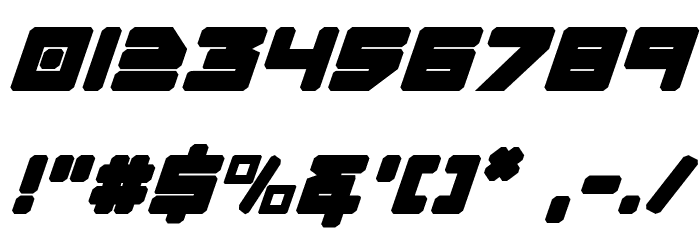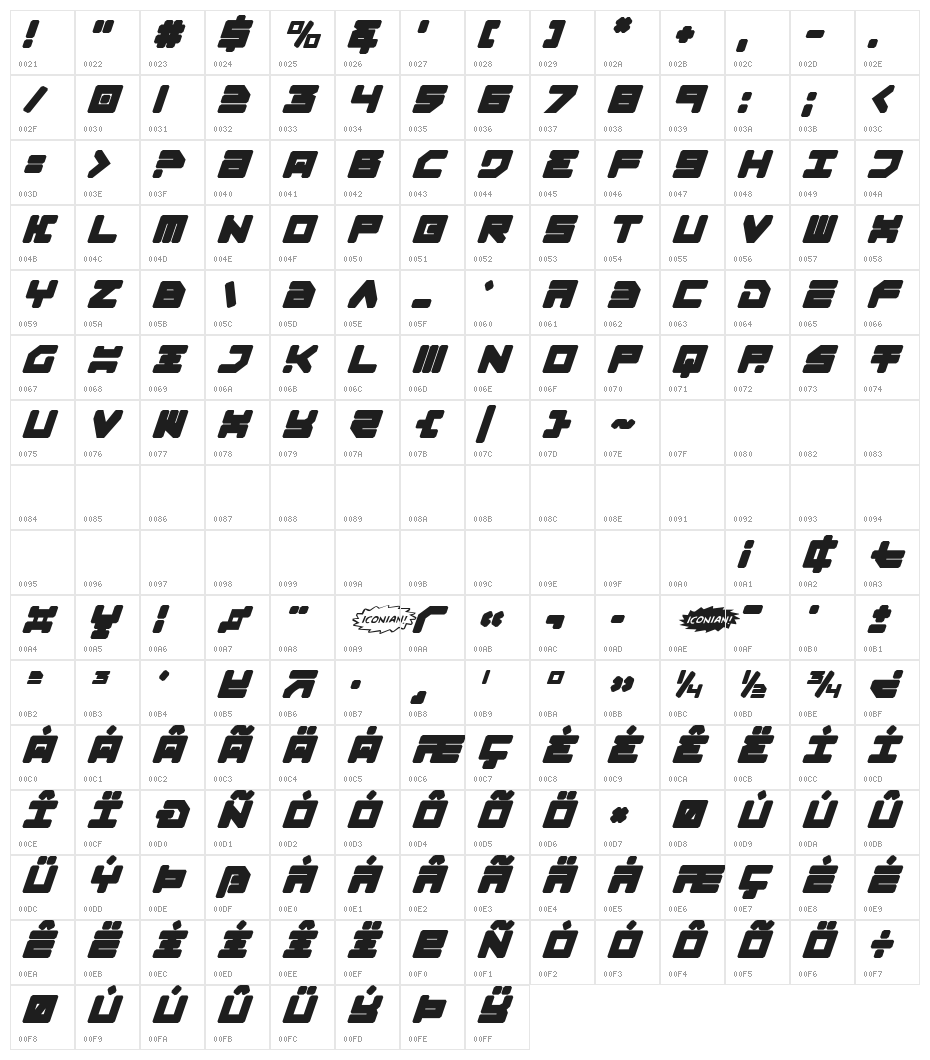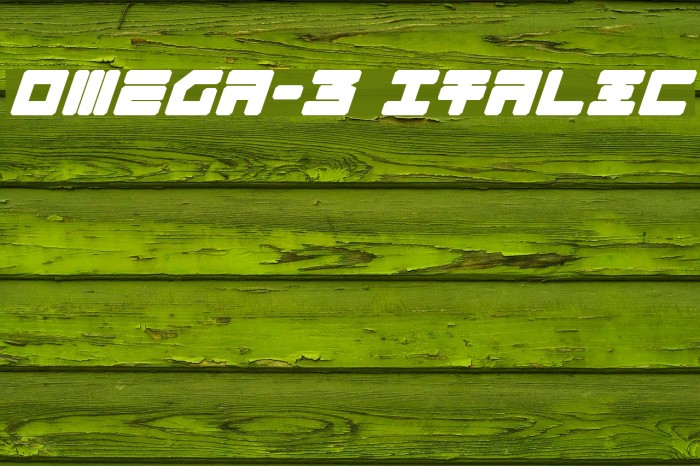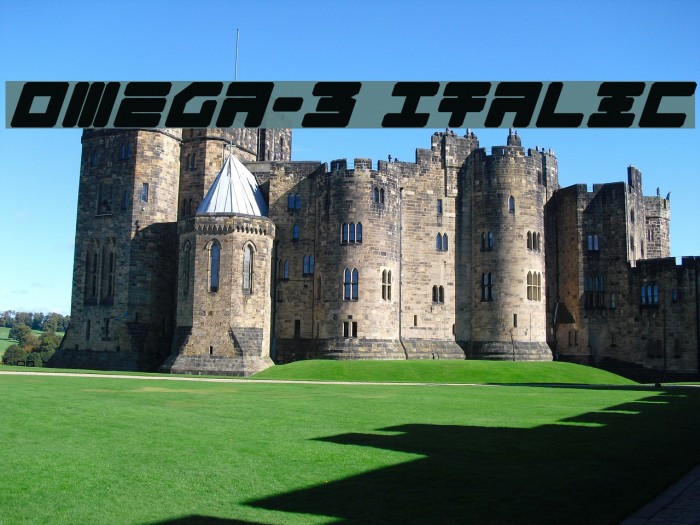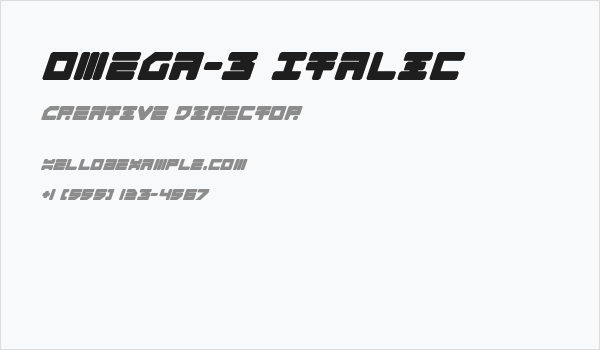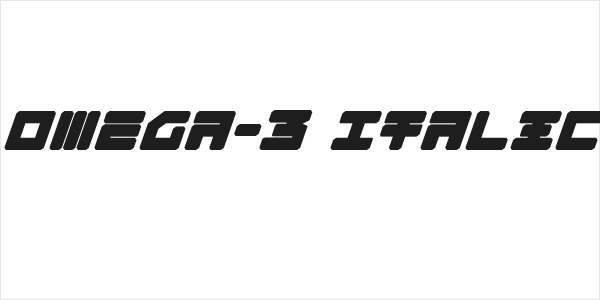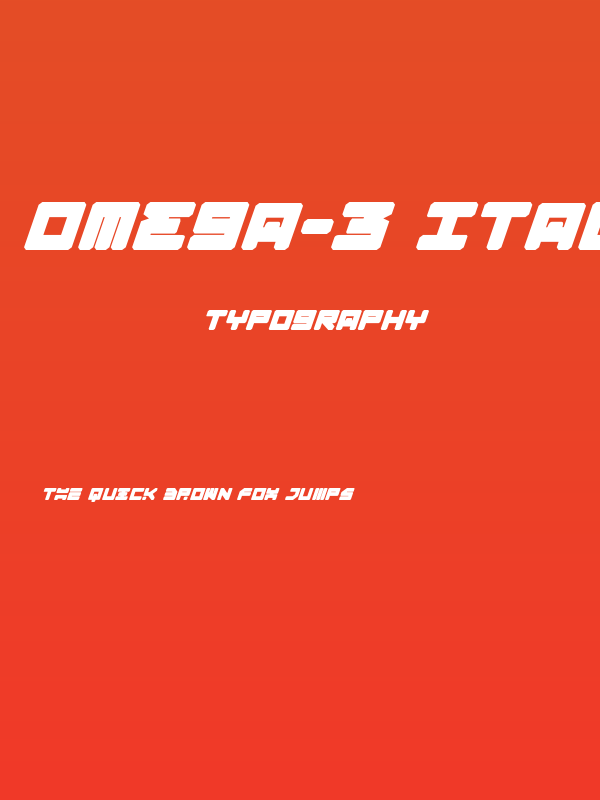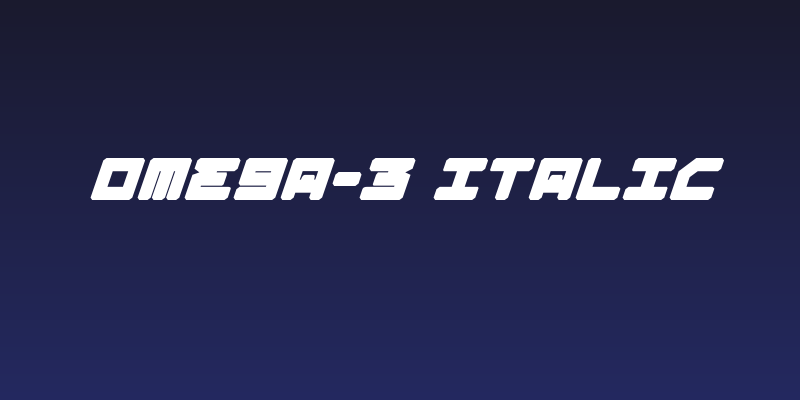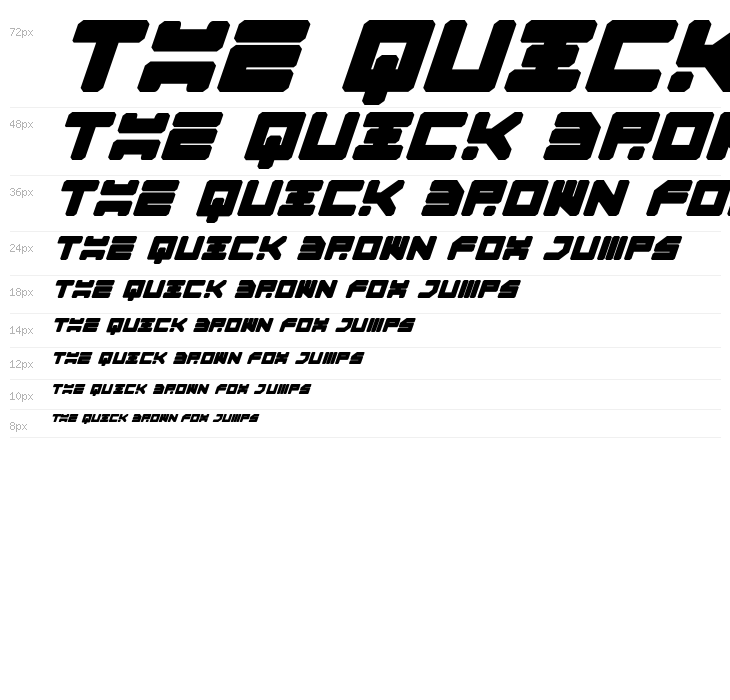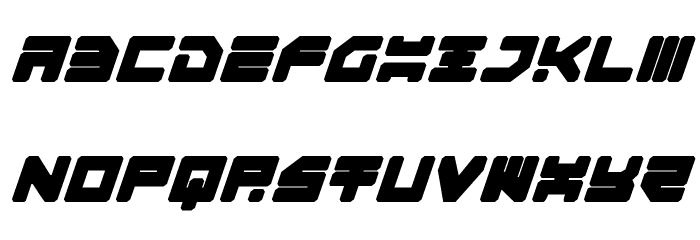
Omega-3 Italic Font
Omega-3 Italic Description
This font features a bold, italicized style with a futuristic and dynamic appearance. The characters are designed with a strong geometric influence, showcasing sharp angles and a slightly condensed form. The uppercase and lowercase letters maintain a consistent style, with a noticeable slant that adds to the italic effect. The numbers and special characters follow the same design principles, ensuring uniformity across all glyphs. The font's bold weight and unique style make it stand out, suitable for projects that require a modern and edgy look.